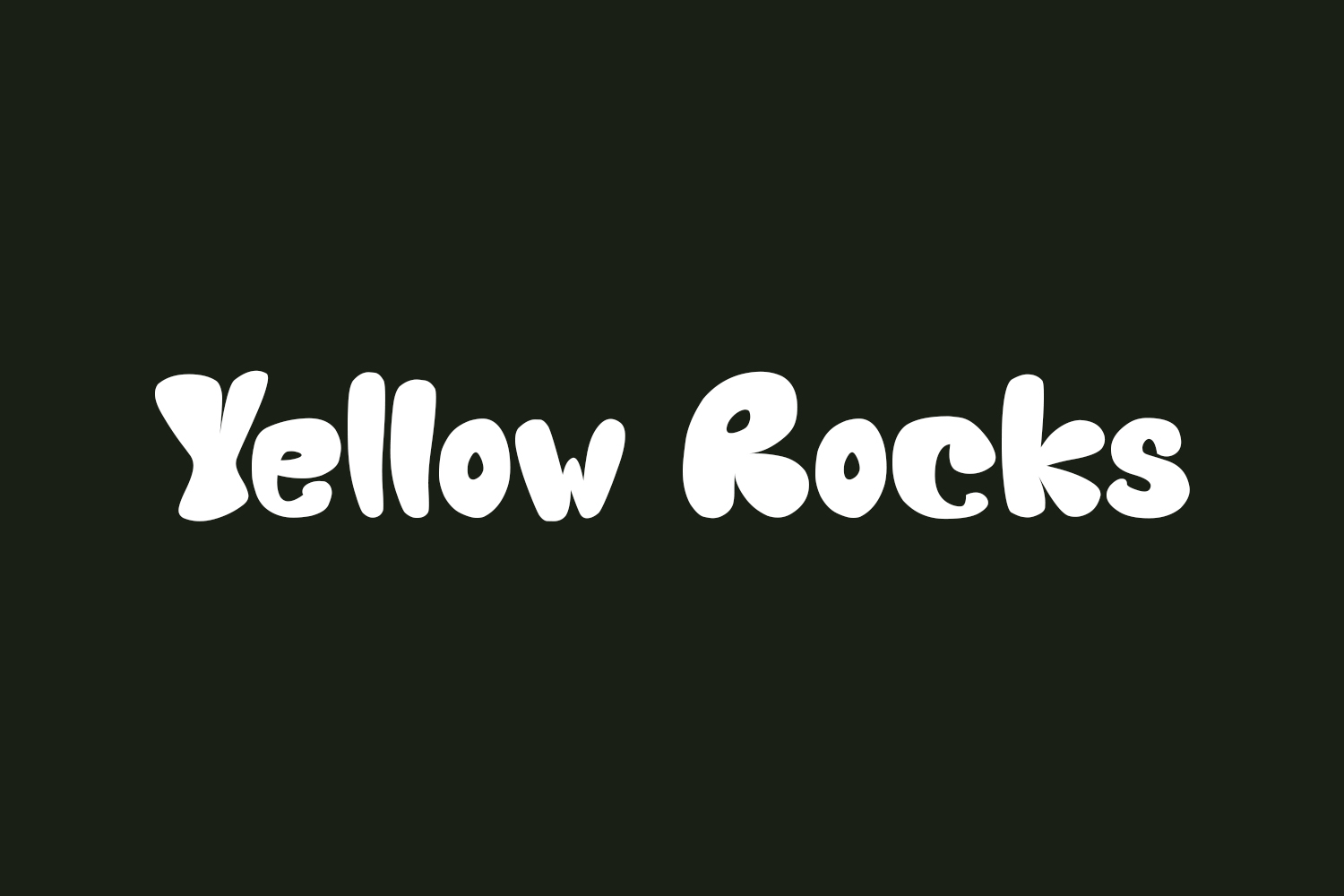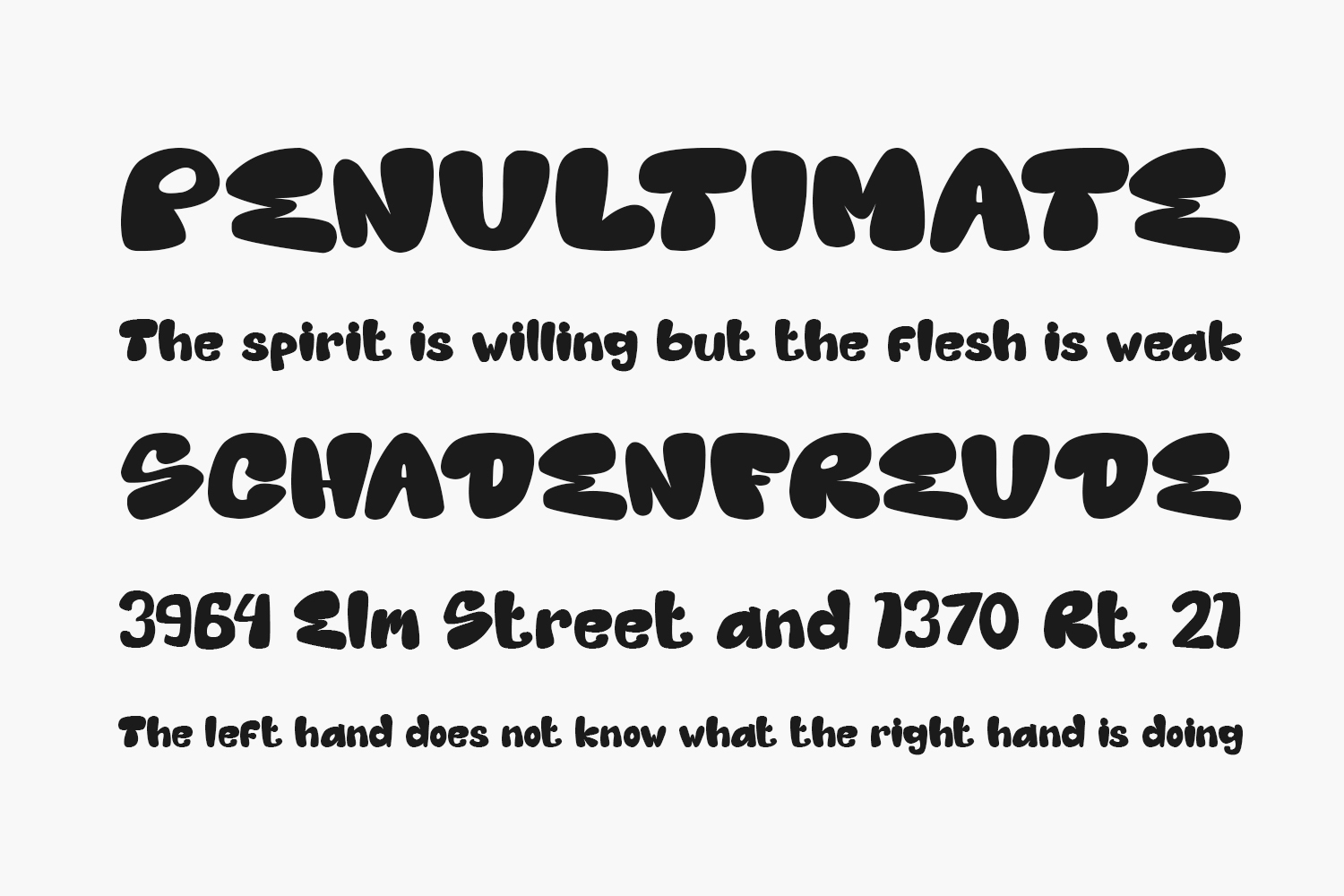
Introducing Yellow Rocks Free Font – a versatile font meticulously crafted to complement diverse projects, from urban chic to timeless branding. Featuring alternative characters and ligatures, it offers endless possibilities to transform your designs. Elevate your product displays with a blend of elegance and playfulness, exuding luxury and value. Ideal for brand logos, games, banners, landing pages, and beyond. Download the font for free if you need it for personal use or purchase the full version for commercial use.